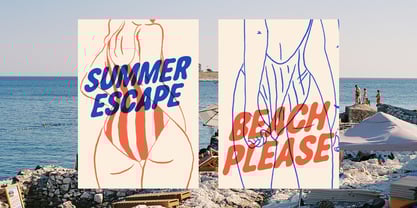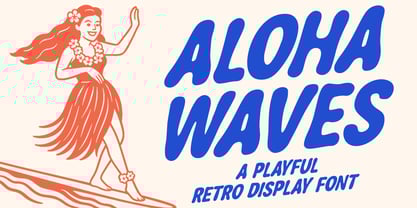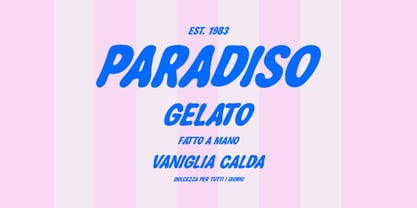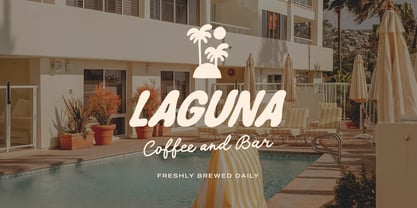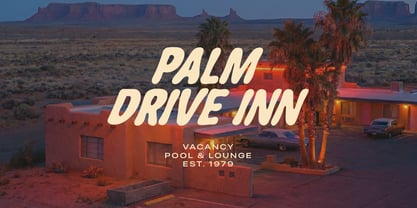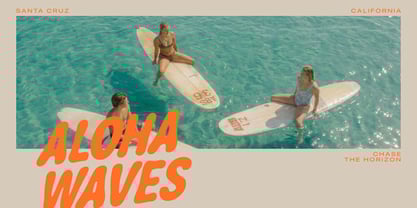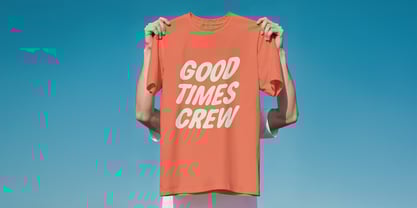
Aloha Waves
by Supfonts
The Aloha Waves Font Family was designed by Dmitrii Chirkov and published by Supfonts. Aloha Waves contains 1 styles.
Aloha Waves is a sunny, carefree retro font inspired by vintage beach culture and warm summer nostalgia. Its smooth rounded forms and hand-drawn character make it perfect for bold, expressive designs that need personality, charm, and a touch of sunshine. Whether you're working on branding, posters, travel visuals, apparel, packaging, or social content. Aloha Waves brings instant summer vibes to any project. What’s Included - Aloha Waves Regular - Full multilingual support - Smooth retro curves & playful shapes - Perfect for both headlines and branding
Designers: Dmitrii Chirkov
Publisher: Supfonts
Foundry: Supfonts
Design Owner: Supfonts